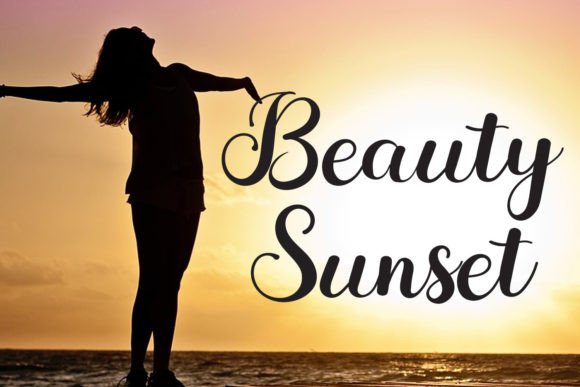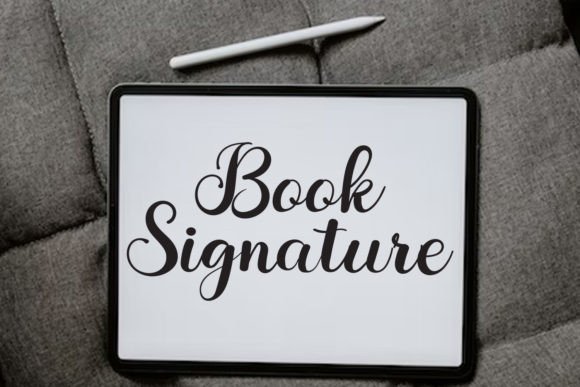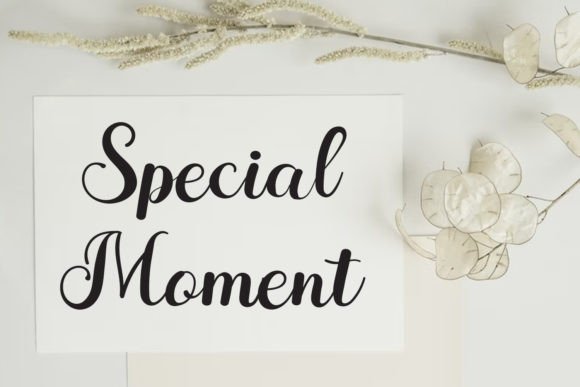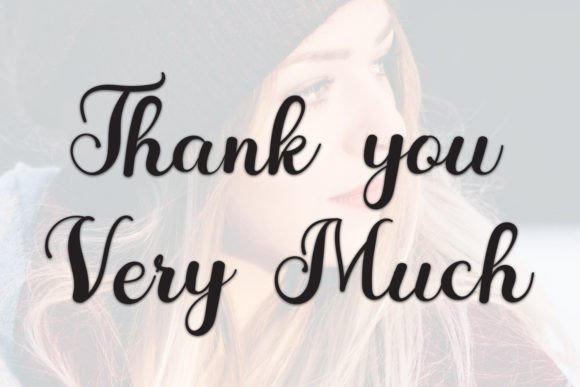
The Charm of Allive Font: A Designer’s Delight
I still remember the time I was working on a wedding invitation project, and I was on a mission to find the perfect font. My client wanted something elegant, yet playful, and I was determined to deliver. After hours of scouring through font libraries and testing out different options, I stumbled upon Allive Font. And let me tell you, it was love at first sight! 💕
Allive Font is a beautiful, handwritten font that feels equally charming and elegant. It’s perfect for designs that need a personal touch, such as wedding invitations, thank you cards, quotes, greeting cards, logos, business cards, and more.
- 💫 Elegant and charming handwritten feel
- 🎨 Versatile and suitable for various design projects
- 🌈 Beautifully crafted with attention to detail
- ⚠️ Limited availability of stylistic alternates
- 🤔 May not be the best choice for very long texts or body copy
The Story Behind Allive Font
Allive Font was designed with love and care by a talented type designer who’s passionate about creating beautiful, handwritten fonts. The designer’s inspiration came from traditional calligraphy and handwriting, with a goal to create a font that’s both elegant and approachable.
Q: Is Allive Font suitable for body copy?
A: While Allive Font is highly legible, it’s best suited for short texts or headings. For longer texts, you might want to consider a more traditional serif or sans-serif font.